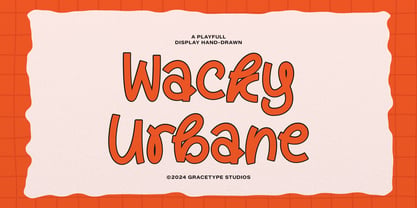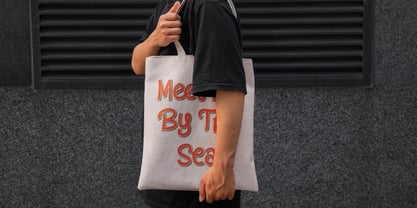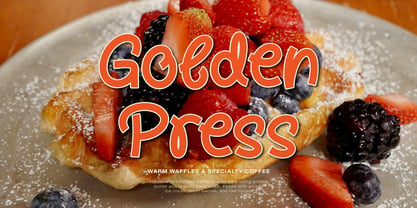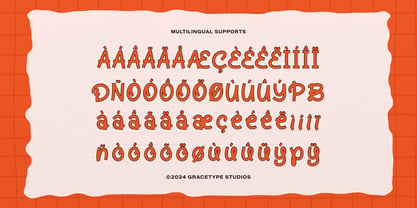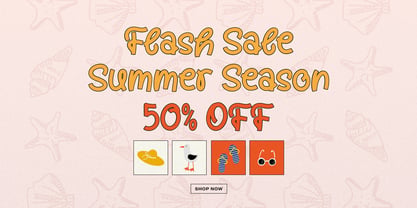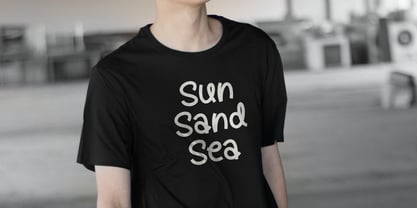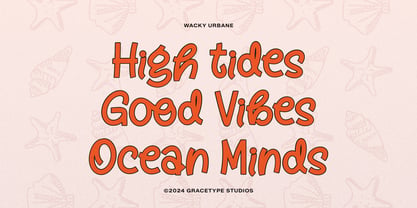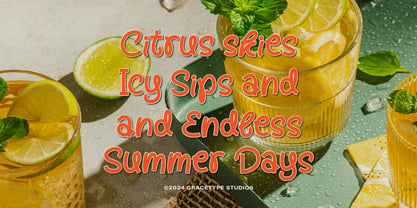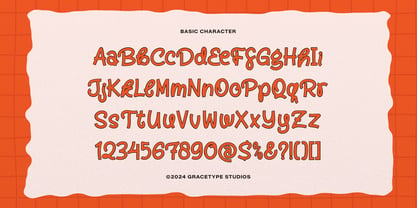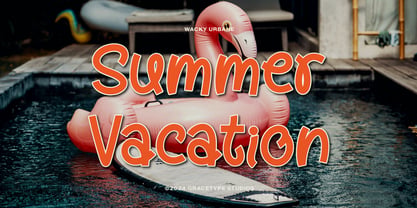
Wacky Urbane
The Wacky Urbane Font Family was designed by Dede Nugraha and published by Tini Fitriani. Wacky Urbane contains 1 styles. More about this family
Wacky Urbane | Display Hand Drawn, from Gracetypestudio, suitable for any projects such as: logos, branding projects, homeware designs, product packaging, mugs, quotes, posters, shopping bags, t-shirts, book covers, name card, invitation cards, greeting cards, label, photography, watermark, special events, and all your other lovely projects that need a Hand Drawn taste.